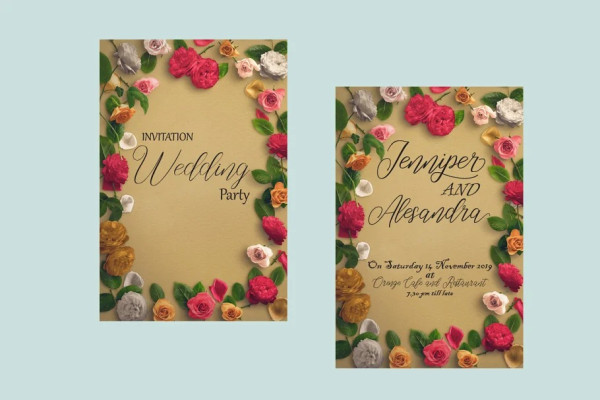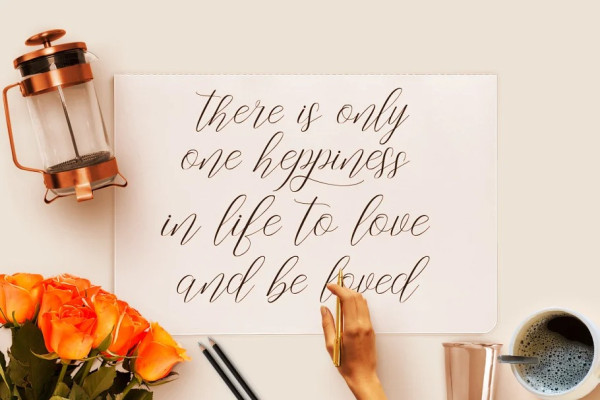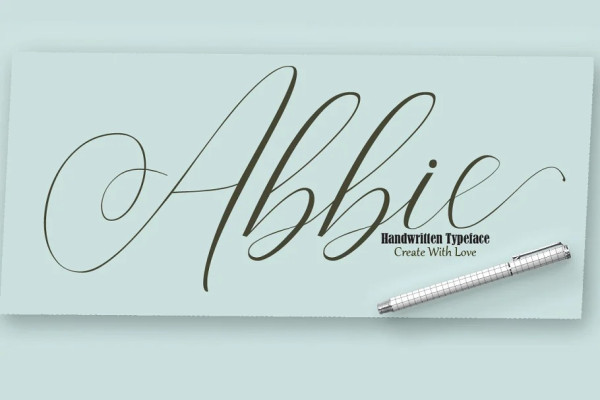
Abbie Font
Abbie Font, Hand Lettered Calligraphy Font with beautiful waves and natural flow. has a unique letter style, with natural handdrawn, and has a softer and smoother character subtly connect all the characters.
They have a simple elegant swashes in separate letters, you can use graphic design software to access the alternate letter.
Abbie Script is perfect for weddings, invitations, greeting cards, quotations, posters, branding, business cards, stationary, title design, header blog, excerpts of art, the art of typography, letter envelopes modern or design books, occurred styles such as design handdrawn, title , letter marriage, pop vintage design, or purpose to make the project / art design we look beautiful and trendy.